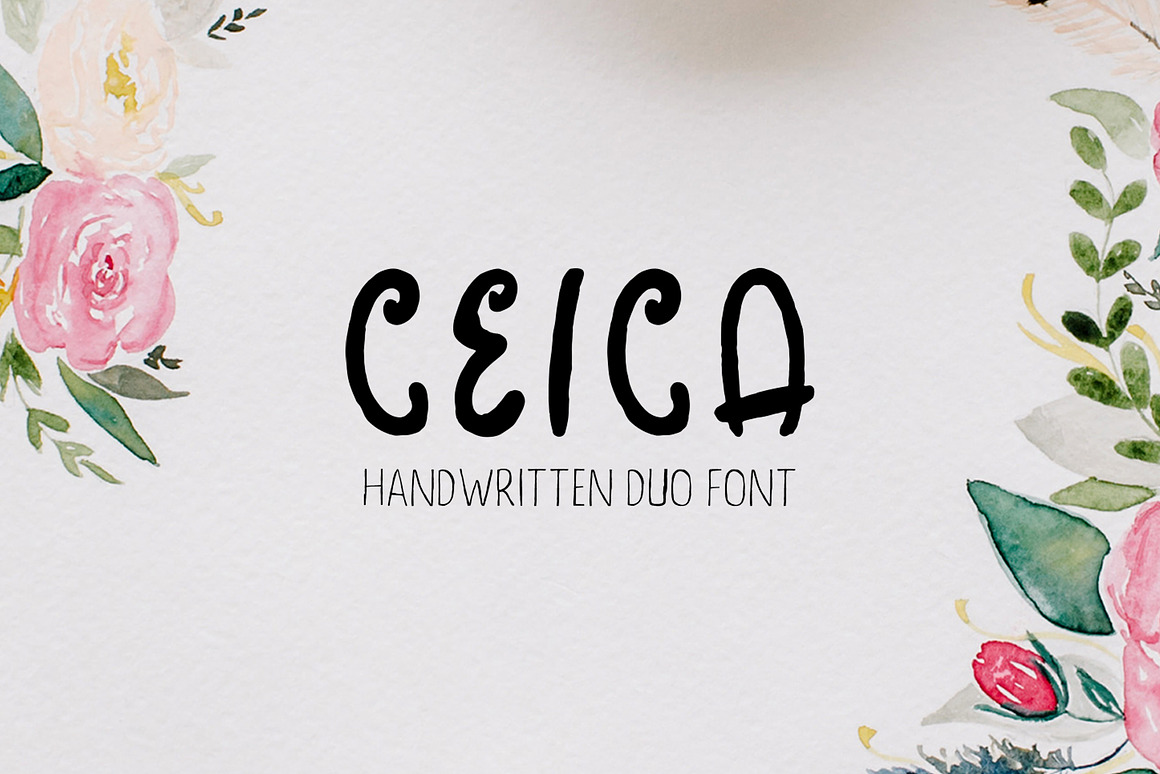
Ceica Handwritten Duo Font + Bonus
This charming handwritten typeface duo is perfect for personal branding, handmade craft labels, artisan product packaging, heartfelt greeting cards, intimate wedding stationery, boutique signage, creative blog headers, and authentic social media graphics. Ceica Handwritten Duo Font excels in projects where personal touch and genuine human connection are valued over corporate perfection.
What makes Ceica Handwritten Duo Font so exciting is its authentic handcrafted appeal that brings warmth and personality to any design project. The font captures the natural flow and organic variations of real handwriting, featuring beautifully imperfect letterforms that feel genuinely human. Each character maintains the spontaneous quality of handwritten text while ensuring excellent legibility across various applications. The duo's complementary styles work harmoniously together, allowing designers to create dynamic layouts with authentic contrast and visual interest that resonates with audiences seeking genuine, personal experiences.
The Ceica Handwritten Duo Font includes two perfectly matched handwritten styles: Script and Print variations. This thoughtful pairing provides designers with versatile options for creating layered text treatments, engaging headlines, and personalized messaging. Each style maintains the collection's authentic handcrafted character while offering distinct personalities for different design needs and communication styles.
Whether you're developing artisan brand identities, creating personal stationery collections, or designing heartfelt marketing materials, Ceica Handwritten Duo Font Free Download provides the authentic charm today's consumers crave. Its genuine character makes it particularly suitable for small businesses, creative entrepreneurs, handmade product brands, and lifestyle companies. The font duo's organic appeal ensures emotional connection in both digital and print applications, while its versatile nature adapts beautifully to vintage, modern, and rustic design aesthetics.
This authentic handwritten collection represents the perfect choice for designers who understand the power of personal touch in meaningful brand communication.